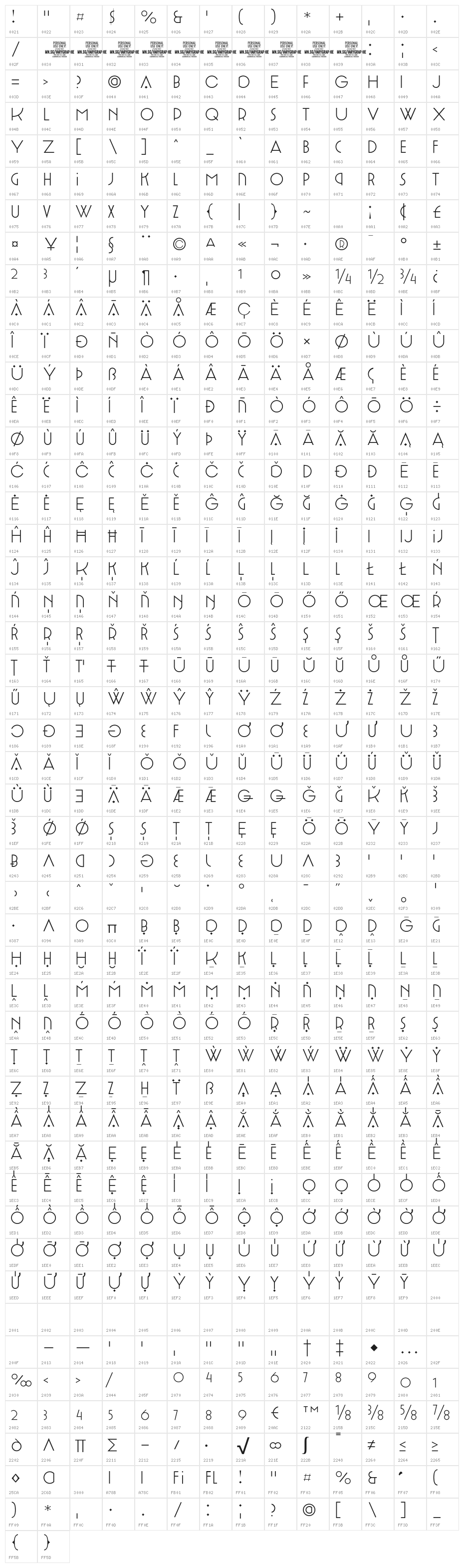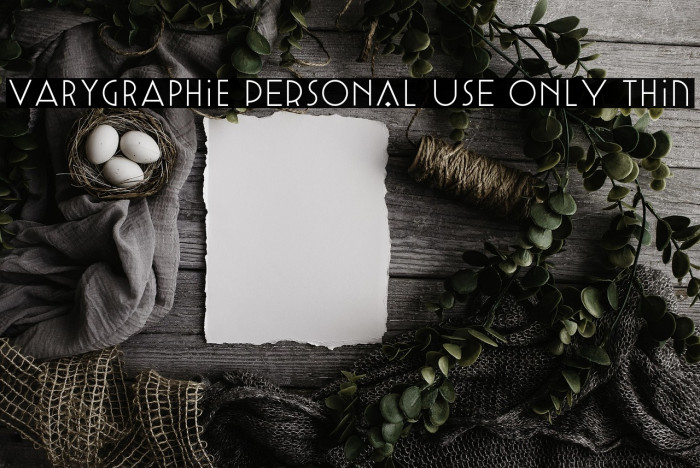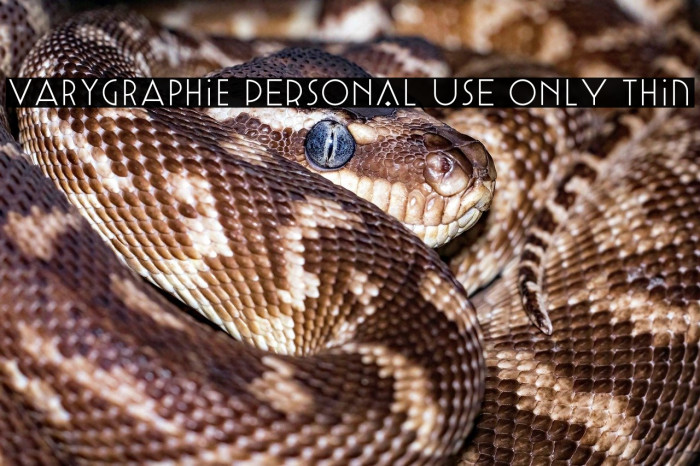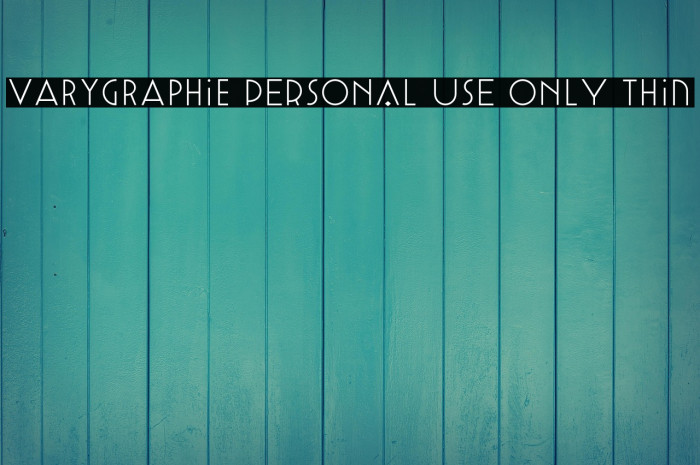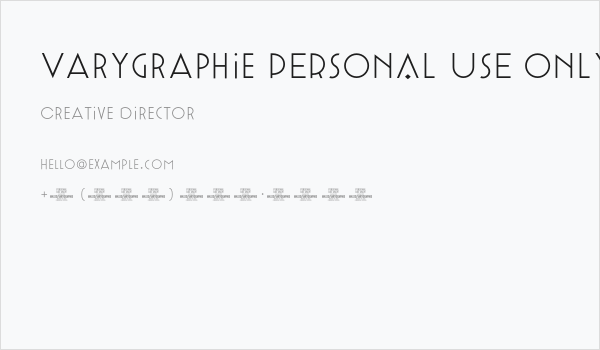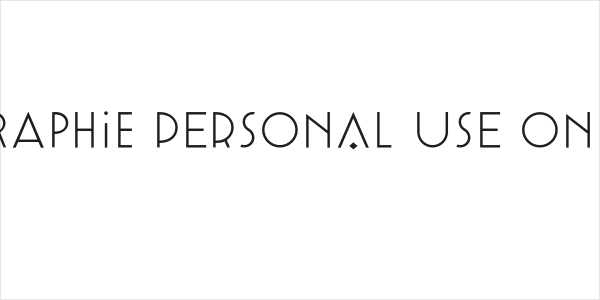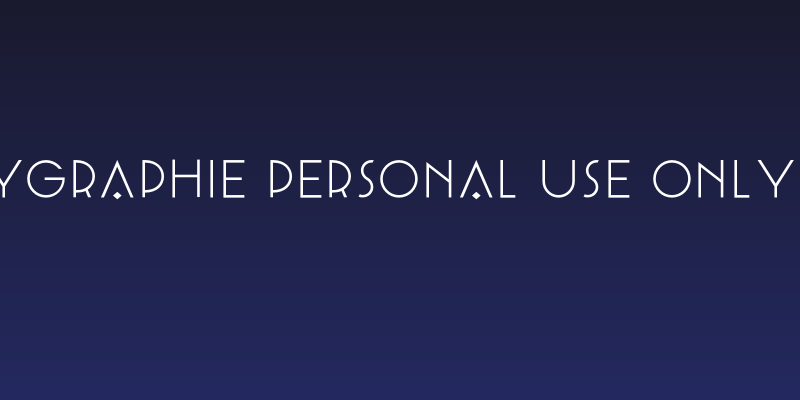
Varygraphie PERSONAL USE ONLY Thin Font
Varygraphie PERSONAL USE ONLY Thin Description
This font features a sleek and modern design with thin, elongated letterforms that exude elegance and sophistication. The characters are crafted with a geometric precision, offering a clean and minimalist aesthetic. The uppercase letters are particularly striking with their sharp angles and unique shapes, while the lowercase letters maintain a consistent style that complements the overall look. The numerals and special characters are designed to match the font's refined appearance, making it versatile for various design applications. Its thin strokes and open counters contribute to a light and airy feel, perfect for projects that require a touch of modernity and class.
| Use Case | Headlines, Logos, Editorial design |
| Proposed Projects | Ideal for branding, editorial design, fashion magazines, luxury product packaging, and modern web design. |